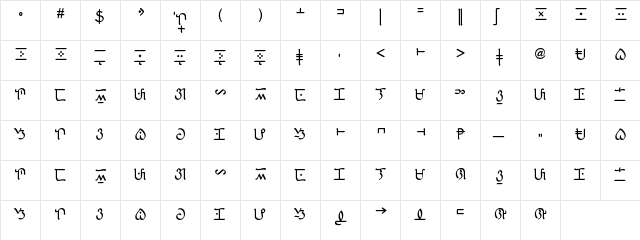
Baybayin Eskriba Light Regular
Design Context for Baybayin Eskriba Light Typeface
Baybayin Eskriba Light is a composed and adaptable typeface that performs quietly and consistently across a wide range of design contexts. Its slender proportions lend an understated elegance to any composition.